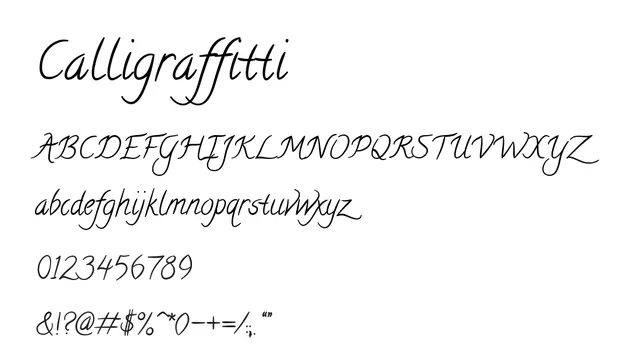
Elegant connected calligraphic script with refined flowing strokes and italic sensibility.
Use for invitations, editorial headers, luxury branding, and formal event materials. Best at display sizes; not suitable for body text.
Pair with a clean sans-serif like Cambay for supporting text or Cantarell for UI elements.